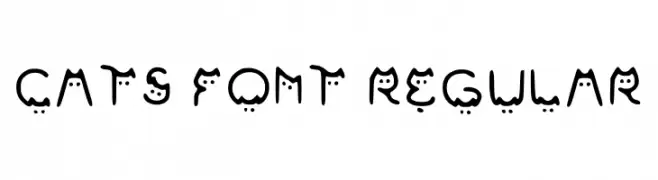
A playful font with cat faces integrated into each character, offering a whimsical and friendly style.
A whimsical font with cat face motifs and a playful, hand-drawn style.
A playful font with cat illustrations integrated into each character.
A playful font with cat-like faces in each letter, perfect for fun and whimsical projects.